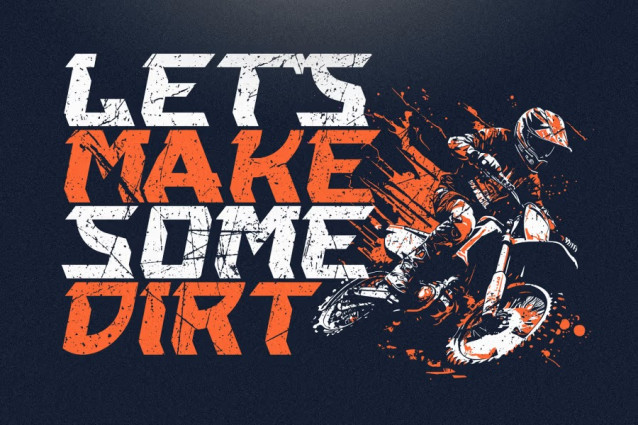
Trave Liner Font
Trave Liner Font – Energetic Racing Font. Built for designers who need a high-impact typeface, this energetic font blends bold geometric shapes with fast-moving angles, creating an instant sense of momentum.
Whether you’re working on racing-themed posters, sports branding, energetic logos, or futuristic advertising, Traveliner ensures your designs will stand out.
A Font Built for Speed and Energy
Traveliner isn’t just another display typeface. It’s an energetic racing font crafted with sharp lines, slanted edges, and powerful strokes that simulate motion. The dynamic structure of its letters instantly communicates velocity and strength. That’s why this font is perfect for automotive projects, esports visuals, dynamic headlines, and bold product launches.
Unlike traditional fonts, Traveliner’s energy-driven design means your audience feels the thrill of speed right away. Every curve and corner reflects motion, making this energetic font the go-to typeface for designs that need adrenaline.